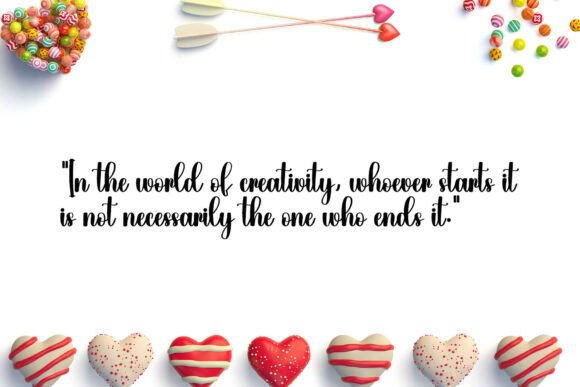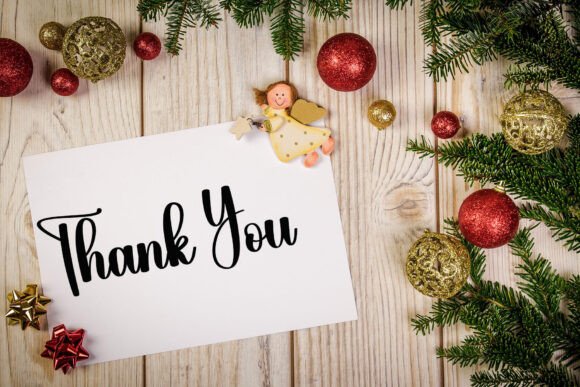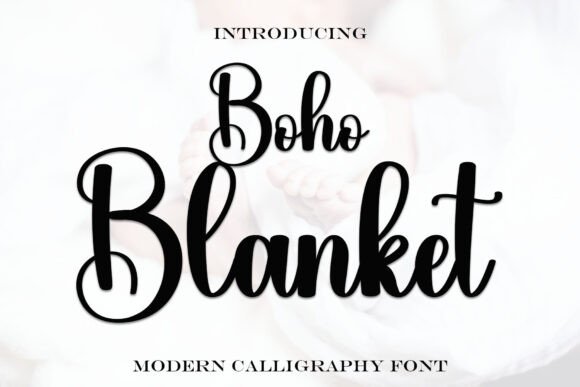
The Boho Blanket Font: A Sweet and Cursive Handwritten Delight
As a designer, I’ve had my fair share of font struggles. I recall working on a wedding invitation project, searching for the perfect font to convey a sense of romance and whimsy. That’s when I stumbled upon the Boho Blanket font, a sweet and cursive handwritten font that instantly captured my heart. In this article, I’ll share my experience with Boho Blanket, its features, and how to make the most of it in your designs.
A Personal Review: What I Love About Boho Blanket
Here’s what makes Boho Blanket a standout font:
- ✨ Sweet and feminine touch: Boho Blanket adds a touch of warmth and elegance to any design.
- ✅ Versatility: It works beautifully on various design projects, from branding and logos to wedding materials, greeting cards, and fashion lookbooks.
- 💕 Romantic and joyful feel: The font’s cursive and handwritten style evokes a sense of joy and playfulness, perfect for designs that require a personal touch.
- 👍 Ease of use: Boho Blanket is easy to read and works well in both digital and print formats.
While Boho Blanket is an excellent font, there are a few things to keep in mind:
- 🤔 Limited use in formal designs: Due to its cursive and handwritten nature, Boho Blanket might not be the best fit for very formal or corporate designs.
- ⚠️ Legibility at small sizes: Like many script fonts, Boho Blanket may become less legible at very small font sizes.
The Story Behind Boho Blanket
Boho Blanket was designed with the intention of creating a font that embodies a sense of freedom and creativity. The designer aimed to craft a font that would be perfect for designs that require a personal touch, such as wedding invitations, greeting cards, and fashion branding. With its sweet and cursive handwritten style, Boho Blanket has become a popular choice among designers and crafters.
Q: What type of designs is Boho Blanket best suited for?
A: Boho Blanket is perfect for designs that require a personal touch, such as wedding invitations, greeting cards, fashion branding, and marketing materials.
Q: Is Boho Blanket suitable for digital use?
A: Yes, Boho Blanket works well in digital formats, but keep in mind that it may become less legible at very small font sizes.
Q: Can I use Boho Blanket in languages other than English?
A: Boho Blanket may not support all languages, so be sure to check the font’s character set and language support before using it in a non-English design.